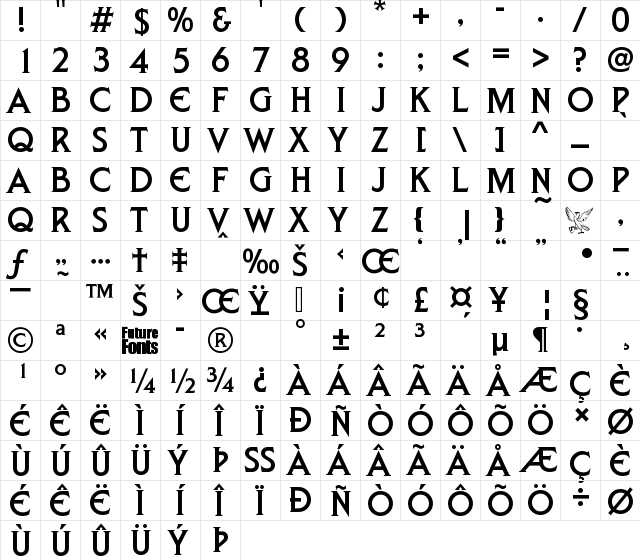
Louisianna Regular
Design Context for Louisianna Typeface
Louisianna is a composed and adaptable typeface that performs quietly and consistently across a wide range of design contexts.